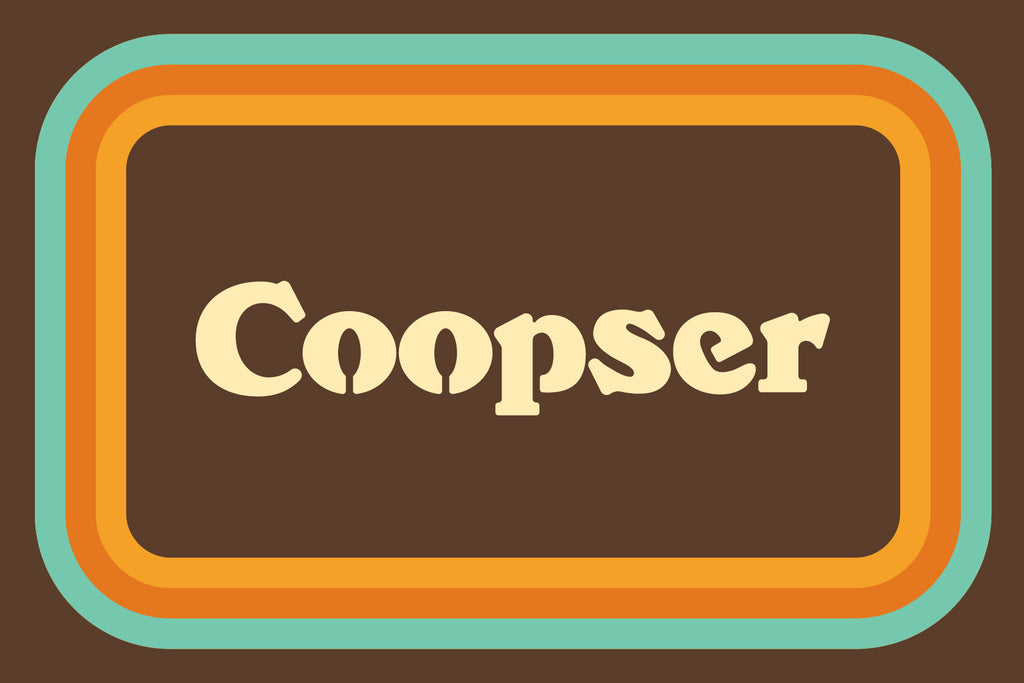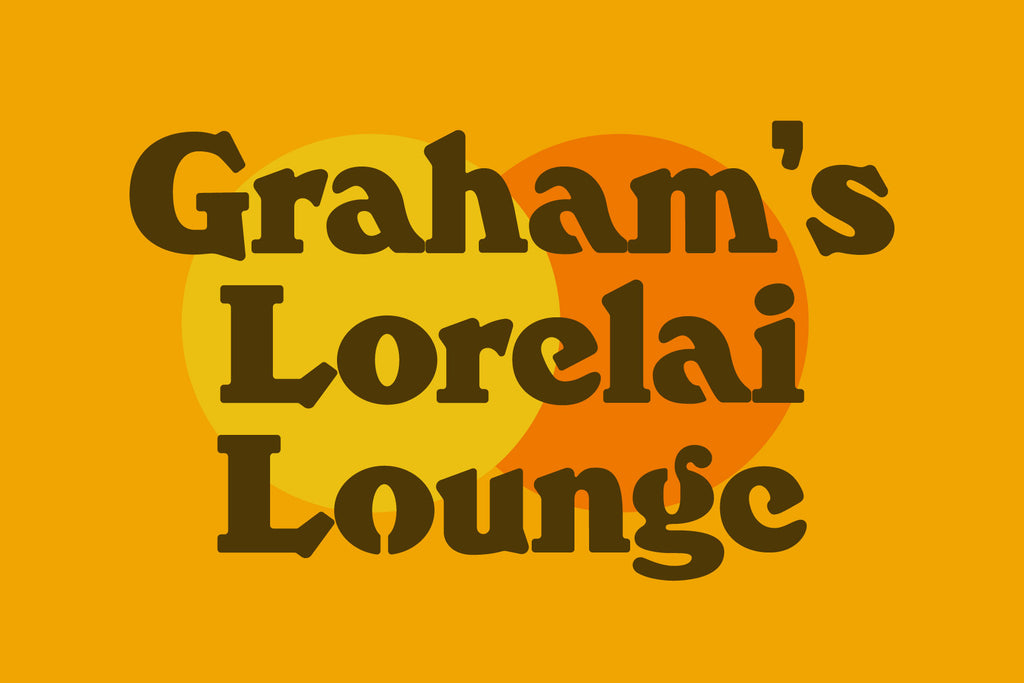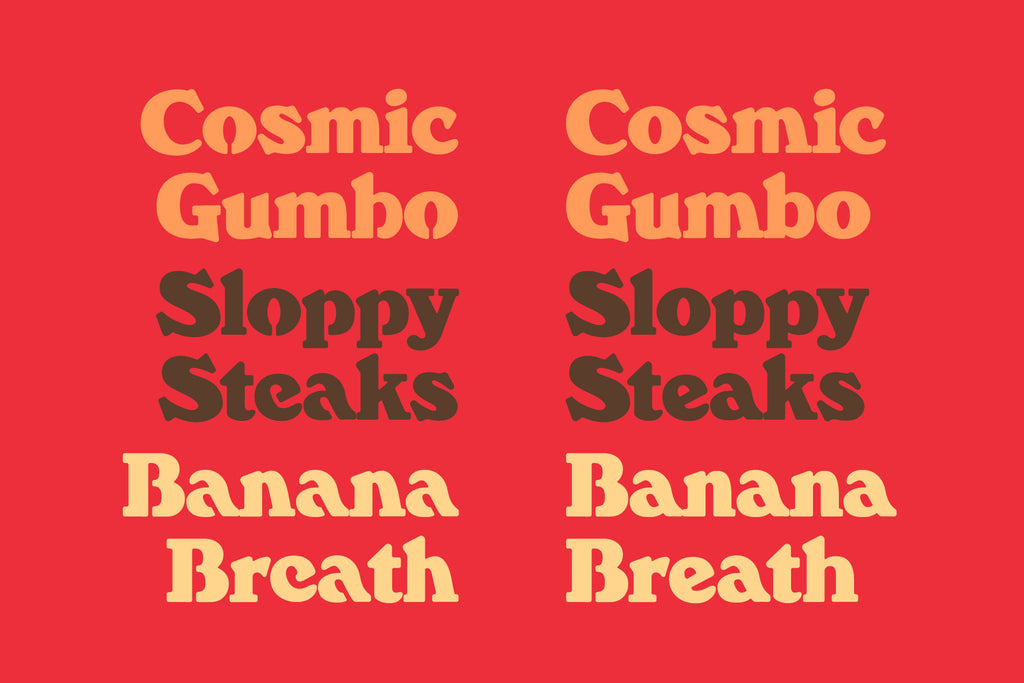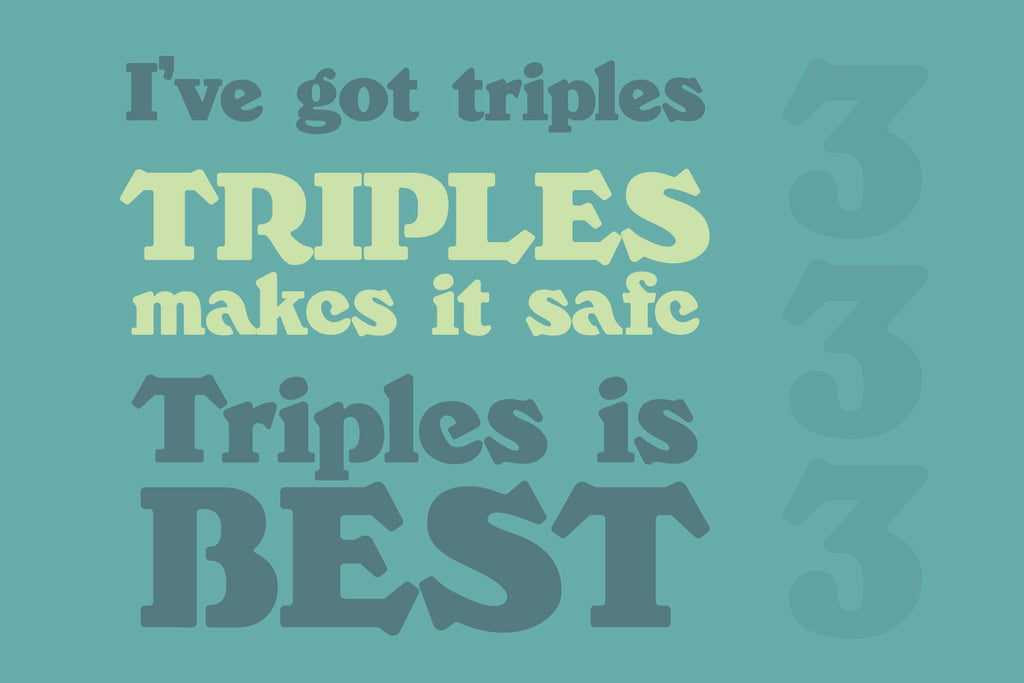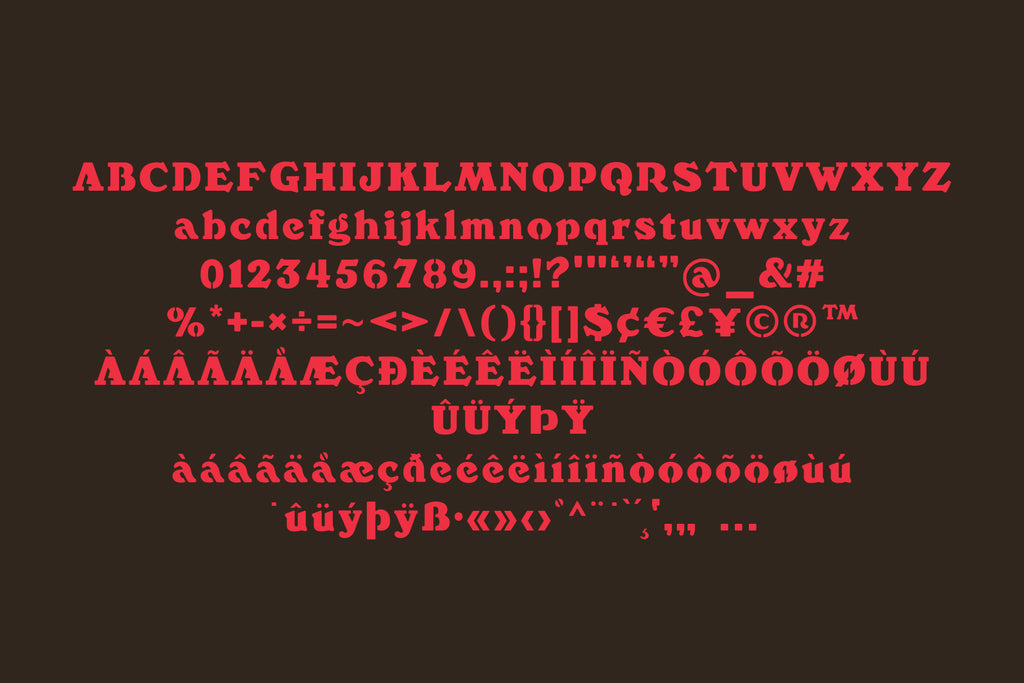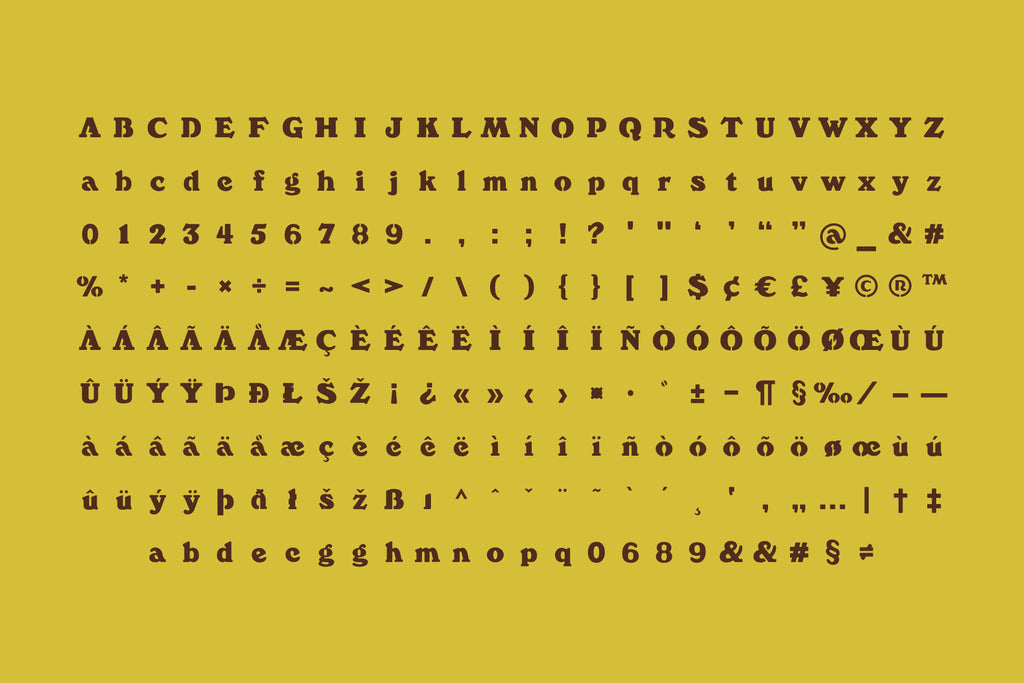
Coopser Typeface
Coopser is a soft-serve stencil serif that blends vintage warmth with modern utility. Inspired by iconic rounded serifs like Cooper Black and Windsor, Coopser delivers bold, friendly letterforms with intentional stencil cuts that add structure without sacrificing charm.
This clean version features smooth edges and consistent geometry, making it highly legible while retaining its playful personality. Alternate filled characters are included, allowing designers to toggle between traditional stencil forms and solid shapes for contrast, emphasis, or layered typographic systems.
With 230 glyphs and multilingual support, Coopser is built for real-world use—perfect for branding, packaging, posters, signage, apparel, editorial headlines, and anywhere a confident, nostalgic voice is needed.